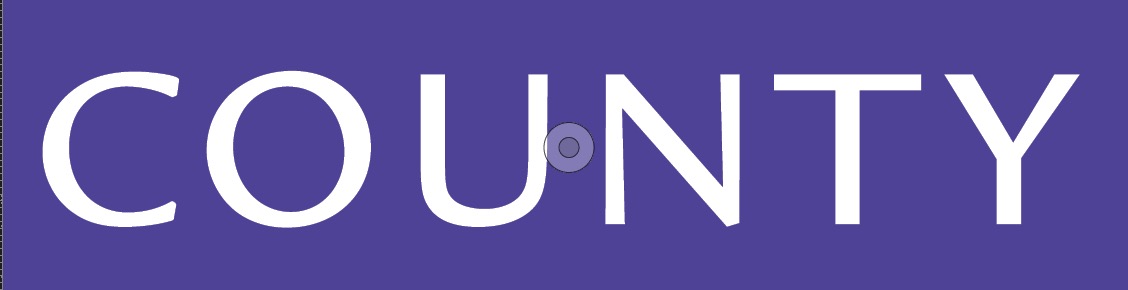
It looks like a lot of sans fonts, but the ‘C’ has flared almost-serifs, the ‘U’ is wonky and the ‘N’ has an angled bottom right turn. Hoping this rings a bell with someone here.
Hmm. I don’t recognize this. It looks a bit like a contemporary version of Optima.
New Millenium is close but no cigar.
ITC Legacy Sans … probably Pro Medium